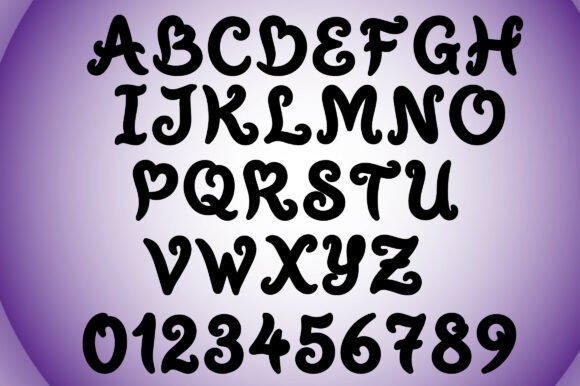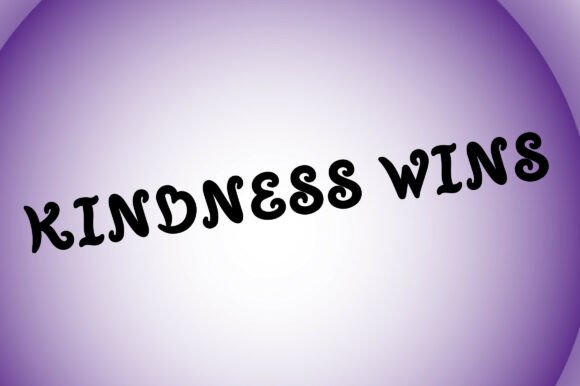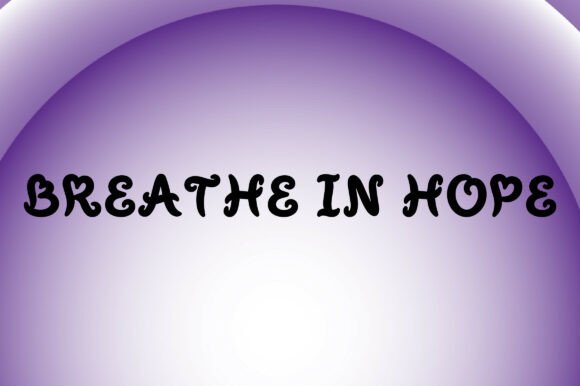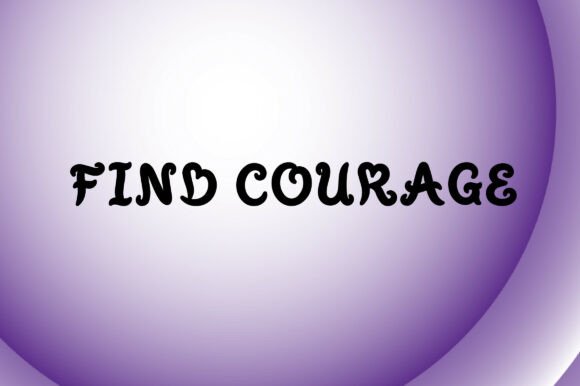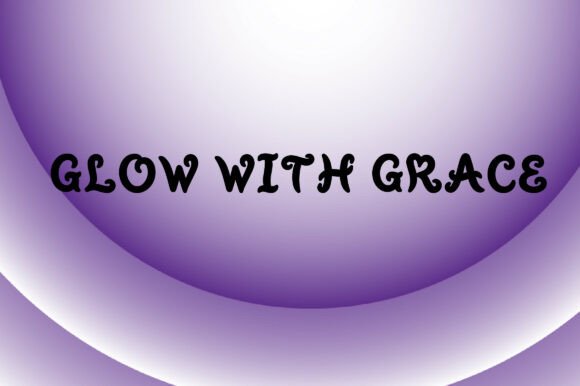
Introducing Alexis Font: A Playful Decorative Display Font
Are you tired of using the same old fonts for your designs? Look no further! Meet Alexis Font, a bold and charming decorative display font that’s perfect for adding a touch of personality to your projects. With its playful and handcrafted style, Alexis Font is sure to make your designs stand out from the crowd.
What Makes Alexis Font So Special?
Alexis Font is a beautifully crafted font that features thick black strokes, soft rounded edges, whimsical swirls, and fun uneven shapes. Its uppercase letterforms are designed to be eye-catching and memorable, making it perfect for logos, branding, posters, packaging, invitations, children’s designs, social media graphics, and creative projects.
Key Features of Alexis Font
- Uppercase Letters A-Z and Numbers 0-9: Alexis Font includes a full set of uppercase letters and numbers, making it easy to create professional-looking designs.
- Bold Handcrafted Style: The font features thick black strokes and soft rounded edges, giving it a charming and friendly look.
- Whimsical Swirls and Uneven Shapes: The font’s playful design elements add a touch of personality to your designs.
- Perfect for a Variety of Projects: From logos and branding to posters, packaging, and social media graphics, Alexis Font is versatile and easy to use.
Why Designers and Crafters Love Alexis Font
Alexis Font is a favorite among designers and crafters because of its unique and playful style. The font’s bold and eye-catching design makes it perfect for creating designs that stand out. Plus, its handcrafted feel adds a touch of personality and whimsy to any project.
How to Use Alexis Font in Your Designs
- Logos and Branding: Use Alexis Font to create a bold and memorable logo for your business or brand.
- Posters and Flyers: Add a touch of personality to your posters and flyers with Alexis Font.
- Packaging: Use Alexis Font to create eye-catching packaging that stands out on store shelves.
- Social Media Graphics: Add a playful touch to your social media graphics with Alexis Font.
- Children’s Designs: Alexis Font is perfect for children’s designs, such as book covers, activity sheets, and more.
Alexis Font is a playful and charming decorative display font that’s perfect for designers and crafters looking to add a touch of personality to their projects. With its bold handcrafted style and whimsical design elements, Alexis Font is sure to make your designs stand out. Whether you’re creating logos, branding, posters, packaging, or social media graphics, Alexis Font is a great choice.